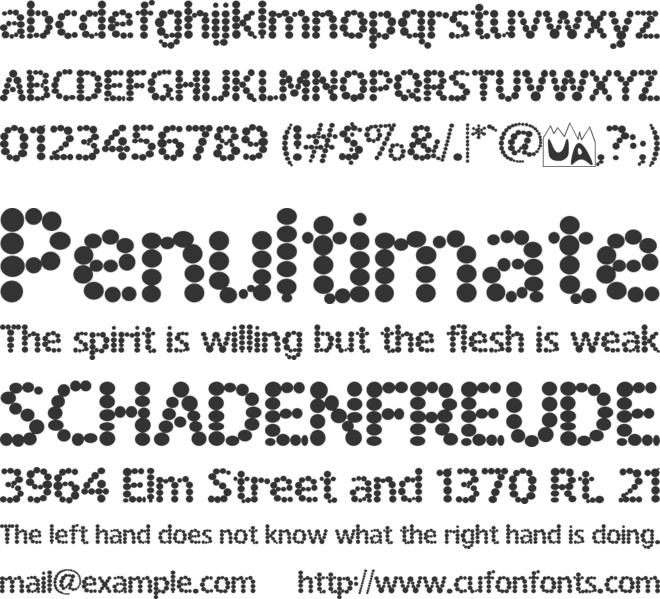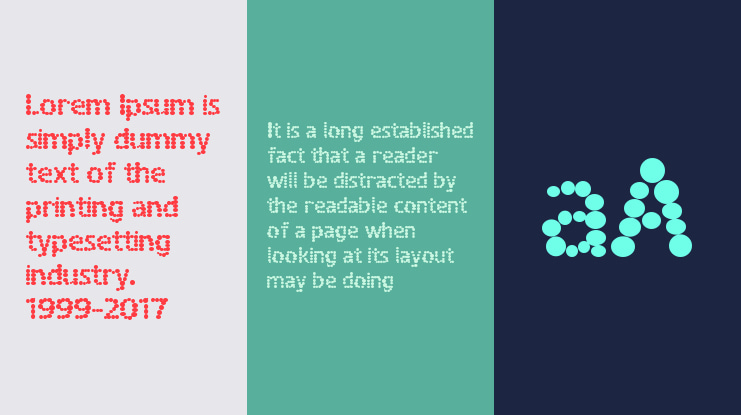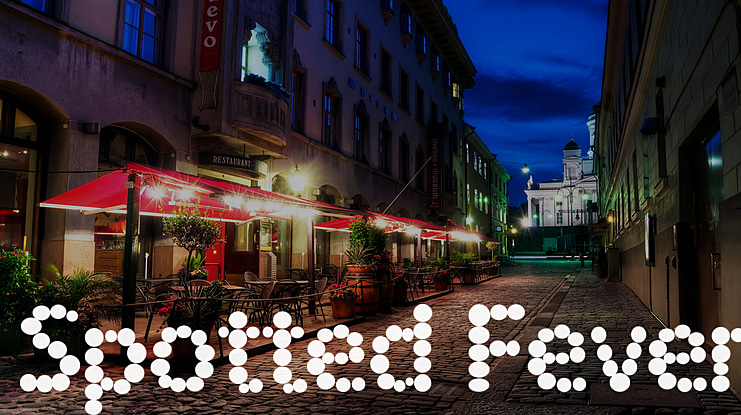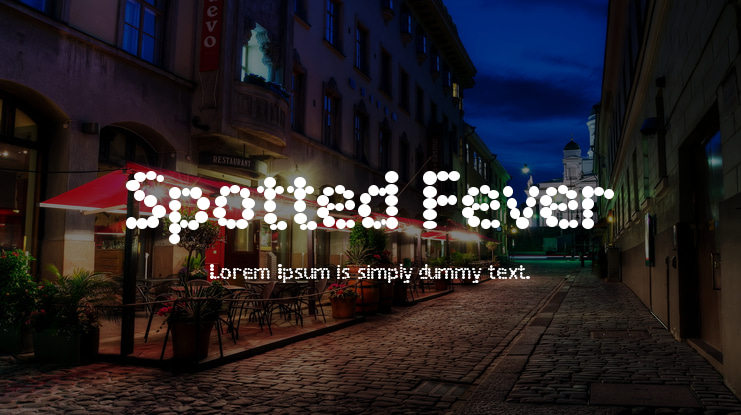
Spotted Fever Font
This version includes upper and lowercase letters, punctuation, and many international characters. I also included some new UA Type dingbats (just to amuse myself, and so you don't get those annoying boxes when you type something that isn't in the font).
Fonts get sick, too. I personally have seen some really sick-looking fonts. This one seems to have caught a strain of Spotted Fever. But don't worry, it's not still contagious. I used my special font medicine to kill all the germs, but leave the look.